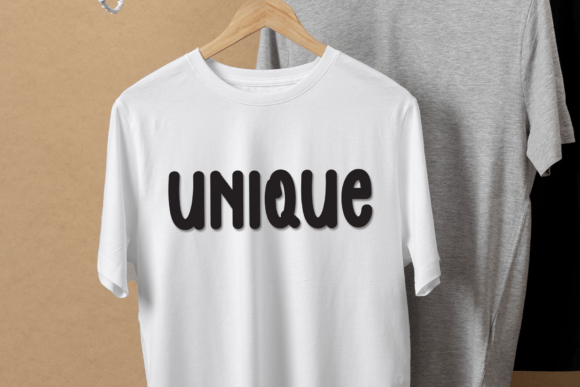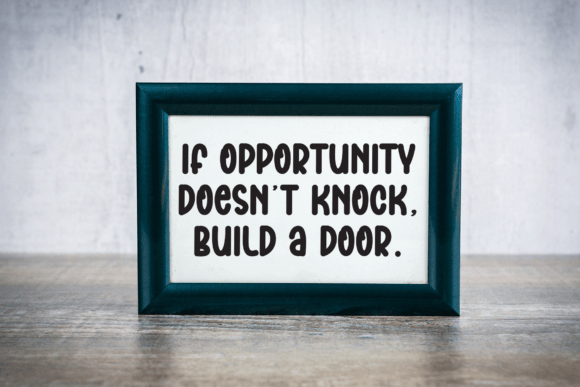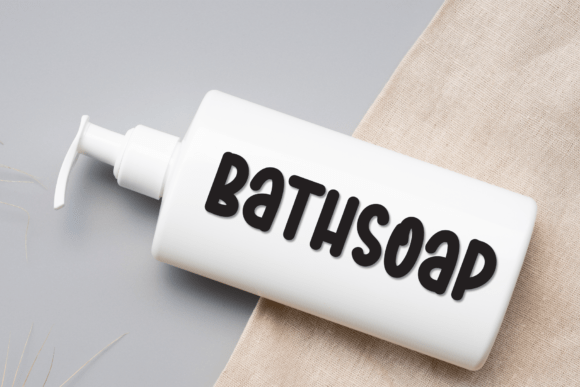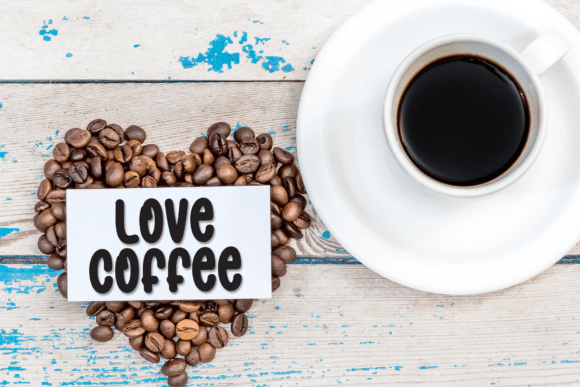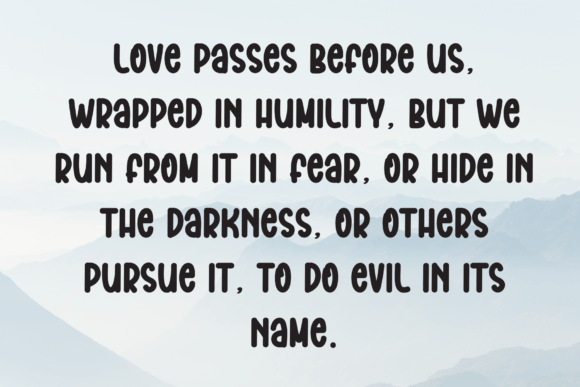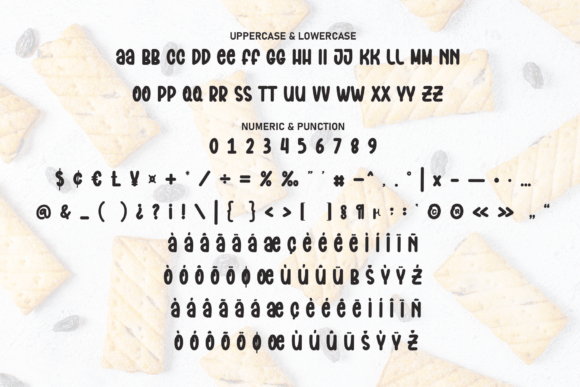
Biscuit Font: The Perfect Addition to Your Summer Designs
Are you looking for a font that embodies the carefree spirit of summer? Look no further than the Biscuit font. This neat and casual display font is designed to radiate fun and relaxation, making it perfect for a variety of creative projects. In this article, we’ll dive into the world of Biscuit font, exploring its features, uses, and benefits for designers and crafters.
What is Biscuit Font?
Biscuit font is a cheerful and laid-back typeface that brings a breezy feel to any design. With clean lines and an easygoing vibe, it’s ideal for creating eye-catching summer posters, event flyers, and playful branding. This font is sure to add a touch of warmth and approachability to your projects, making it perfect for designers who want to evoke a sense of fun and relaxation.
Key Features of Biscuit Font
So, what makes Biscuit font so special? Here are some of its key features:
• Clean Lines: Biscuit font boasts clean and crisp lines that give it a modern and fresh feel.
• Easygoing Vibe: This font exudes a laid-back and carefree attitude, perfect for summer designs.
• Cheerful: Biscuit font is designed to bring a smile to your face, making it ideal for playful branding and fun projects.
• Versatile: This font can be used for a variety of design projects, from posters and flyers to social media graphics and more.
Uses for Biscuit Font
Biscuit font is perfect for a range of design projects, including:
• Summer Posters: Create eye-catching posters for summer events, sales, or promotions with Biscuit font.
• Event Flyers: Design fun and engaging flyers for events like beach parties, music festivals, or outdoor concerts.
• Playful Branding: Use Biscuit font to create a playful and approachable brand identity for your business or product.
• Social Media Graphics: Add a touch of fun and personality to your social media graphics with Biscuit font.
So, why should designers and crafters choose Biscuit font for their projects? Here are some benefits:
• Easy to Read: Biscuit font is clear and easy to read, making it perfect for designs that need to communicate a message quickly.
• Highly Versatile: This font can be used for a range of design projects, from digital graphics to print materials.
• Time-Saving: With Biscuit font, you can create professional-looking designs in no time, saving you time and effort.
• Unique Style: Biscuit font offers a unique and distinctive style that will set your designs apart from the crowd.
Tips for Using Biscuit Font
Here are some tips for getting the most out of Biscuit font:
• Pair with Other Fonts: Experiment with pairing Biscuit font with other fonts to create a unique and interesting design.
• Use for Headings: Biscuit font is perfect for headings and titles, so use it to add a touch of personality to your designs.
• Experiment with Colors: Try out different colors and color combinations to find the perfect look for your design.
In conclusion, Biscuit font is a fantastic addition to any designer’s toolkit. With its clean lines, easygoing vibe, and cheerful personality, it’s perfect for creating fun and engaging designs that evoke the spirit of summer. Whether you’re designing posters, flyers, or social media graphics, Biscuit font is sure to bring a touch of warmth and approachability to your projects. So why not give it a try and see the difference it can make?